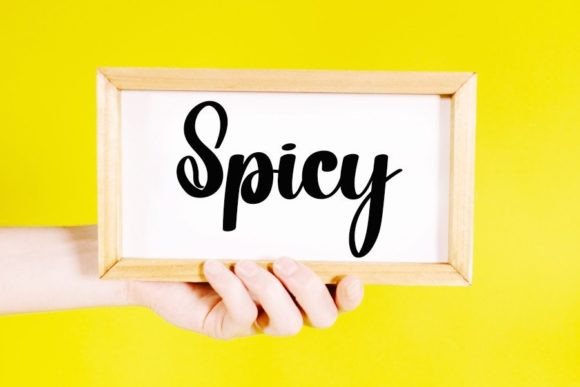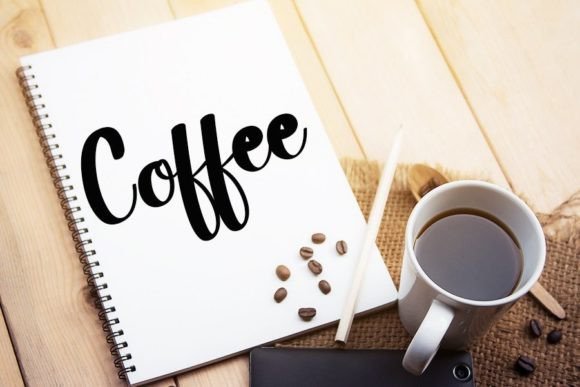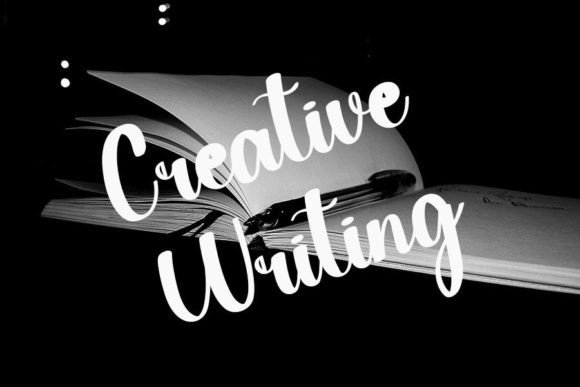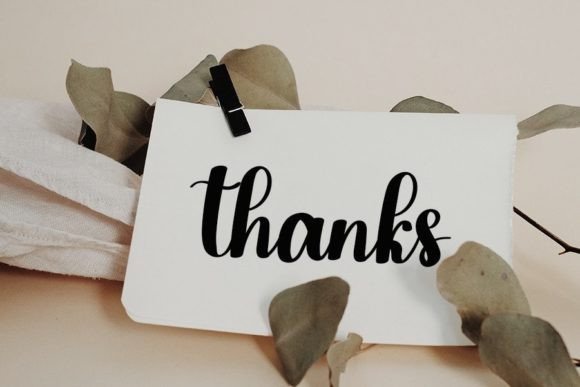
Discover the Elegance of Chillion Font: Elevate Your Designs with a Timeless Touch
Are you on the hunt for a font that adds a touch of elegance and sophistication to your projects? Look no further than the Chillion Font. This beautiful handwritten font is designed to bring a distinct and timeless style to your designs, making it perfect for crafters and designers alike. In this article, we’ll dive into the world of Chillion Font, exploring its unique features, and how you can use it to create spectacular designs that stand out from the crowd.
The Charm of Chillion Font
Chillion Font is a neat and beautiful handwritten font that boasts an elegant touch, making it an ideal choice for a wide range of projects. Whether you’re working on a logo, branding materials, or even a website, this font is sure to impress. Its incredibly distinct and timeless style is sure to capture the attention of your audience, and leave a lasting impression.
One of the standout features of Chillion Font is its unique blend of classic and modern elements. The font’s elegant lines and curves give it a sophisticated feel, while its handwritten nature adds a touch of warmth and personality. This makes it perfect for designers and crafters who want to add a personal touch to their work.
What Makes Chillion Font So Special?
So, what sets Chillion Font apart from other fonts on the market? Here are just a few reasons why this font is a cut above the rest:
- Unique Style: Chillion Font has a distinct and timeless style that is sure to make your designs stand out.
- Elegant Touch: The font’s elegant lines and curves give it a sophisticated feel that’s perfect for high-end designs.
- Handwritten Nature: The font’s handwritten nature adds a touch of warmth and personality to your designs.
- Versatility: Chillion Font is perfect for a wide range of projects, from logos and branding materials to websites and more.
How to Use Chillion Font in Your Designs
Now that we’ve explored the unique features of Chillion Font, let’s take a look at how you can use it in your designs. Here are a few tips to get you started:
- Pair it with Other Fonts: Chillion Font pairs perfectly with other fonts, making it easy to create stunning contrast and visual interest.
- Use it for Headings: The font’s elegant lines and curves make it perfect for headings and titles.
- Add a Personal Touch: Use Chillion Font to add a personal touch to your designs, making them more relatable and engaging.
Why Designers and Crafters Love Chillion Font
Chillion Font has quickly become a favorite among designers and crafters, and for good reason. Here are just a few reasons why:
- Easy to Read: The font’s clear and elegant lines make it easy to read, even at small sizes.
- Highly Versatile: Chillion Font is perfect for a wide range of projects, from digital designs to print materials.
- Unique Style: The font’s unique style ensures that your designs will stand out from the crowd.
In conclusion, Chillion Font is a beautiful and elegant handwritten font that’s perfect for designers and crafters who want to add a touch of sophistication to their work. Its unique style, elegant lines, and curves make it a cut above the rest, and its versatility ensures that it can be used in a wide range of projects. Whether you’re working on a logo, branding materials, or a website, Chillion Font is sure to impress. So why wait? Fall in love with Chillion Font today, and start creating spectacular designs that stand out from the crowd!